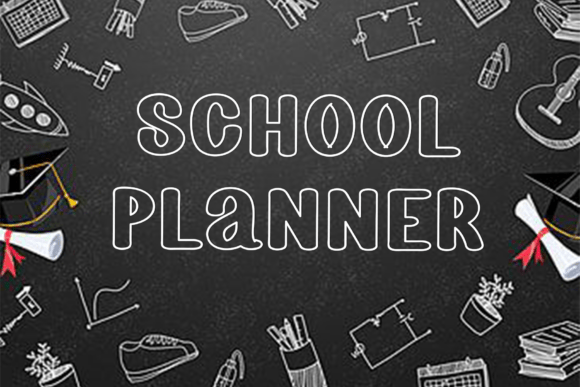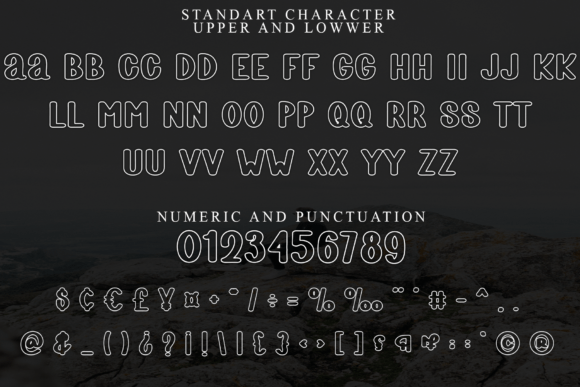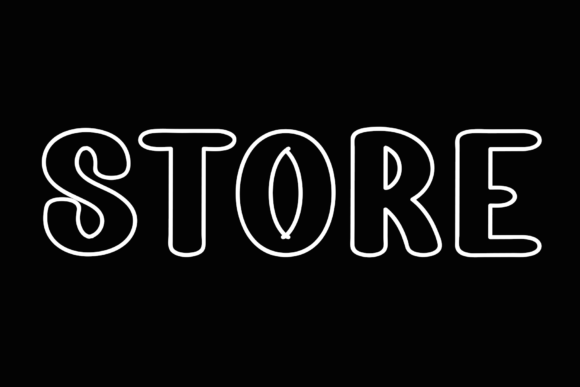
Introduction to Plump Pudding Font
Inject a dose of pure joy into your designs with Plump Pudding, a playful bubble font built for maximum visual fun.
This hollow outline typeface features ultra-rounded, β€œinflated” letterforms that create a soft, friendly aesthetic Its bold presence and clean outlines ensure high legibility, making it an essential tool for projects targeting children, youth culture, or anyone looking for a β€œpop” of high-energy personality.
Key Features of Plump Pudding Font